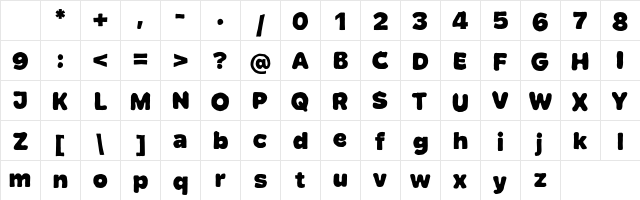
Complete Blone Regular glyph index. Displaying only characters natively supported by Blone Regular font.
Blone is a composed and adaptable typeface that performs quietly and consistently across a wide range of design contexts.